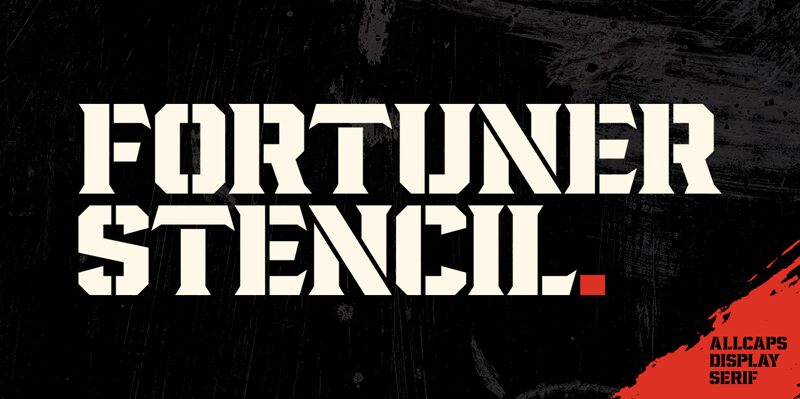
Fortuner Heavy stands at attention with its military-inspired stencil design, crafted by Variatype to command attention. With bold strokes that convey strength and precision, this member of the Fortuner font family brings an authoritative presence to any display setting. The robust architecture of each character evokes a sense of durability and resilience, perfectly suited for projects that require a touch of rugged sophistication.
Ideal for branding, poster design, and impactful headlines, Fortuner Heavy makes a strong statement in environments where visual dominance is key. Its military stylings also make it an excellent choice for themed events, game titles, or any creative work seeking to capture the essence of discipline and power inherent in its design.